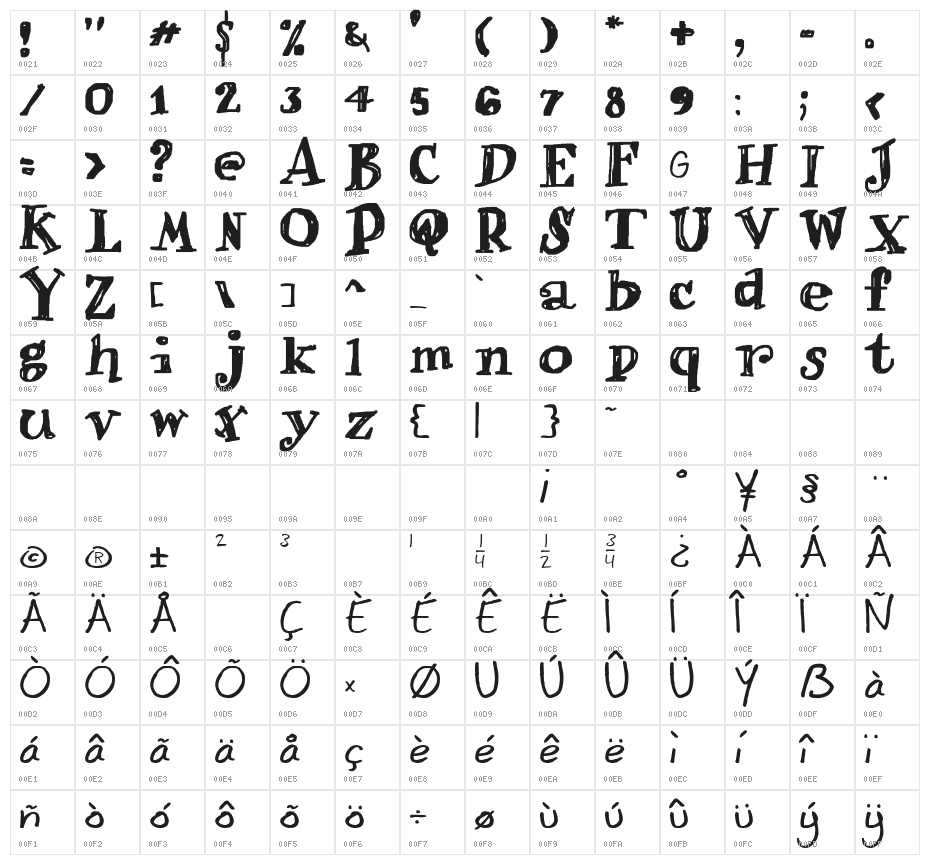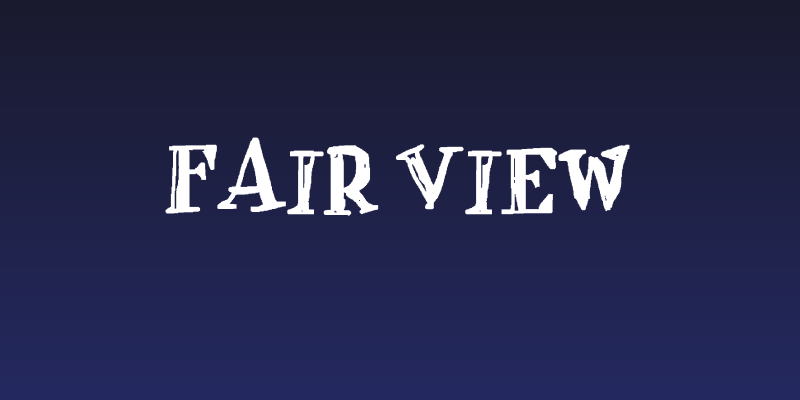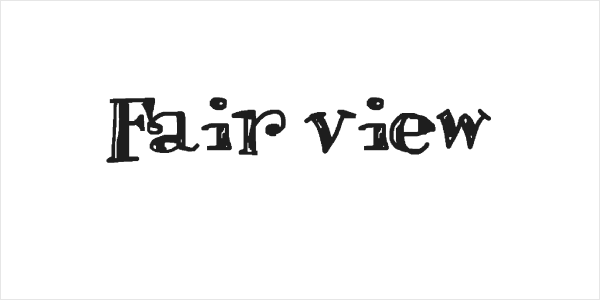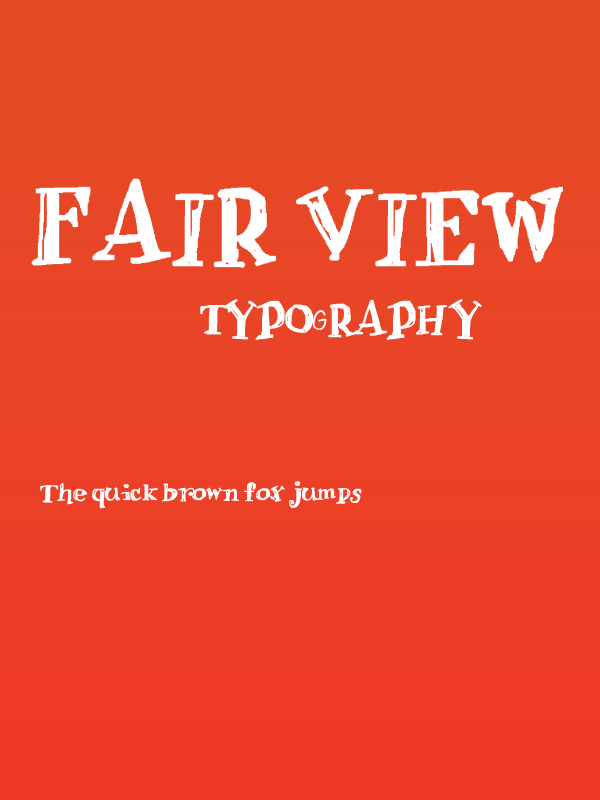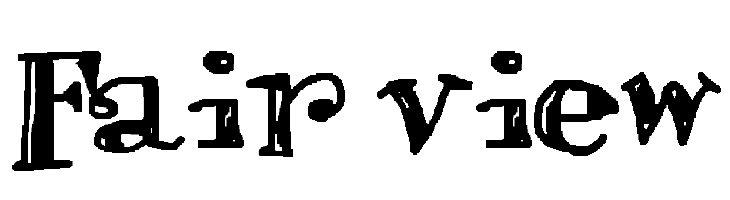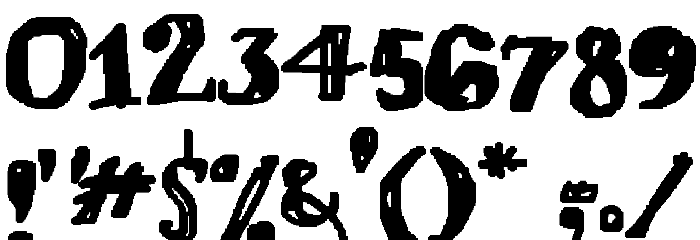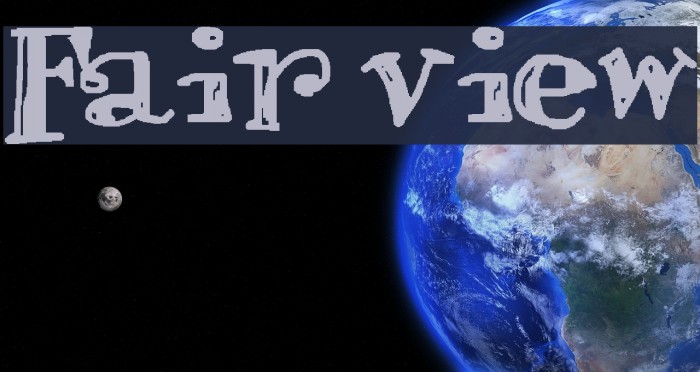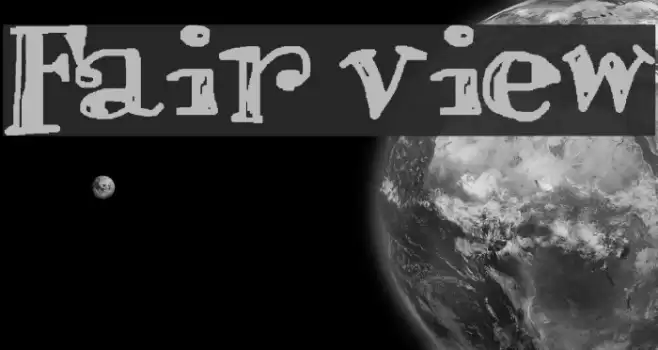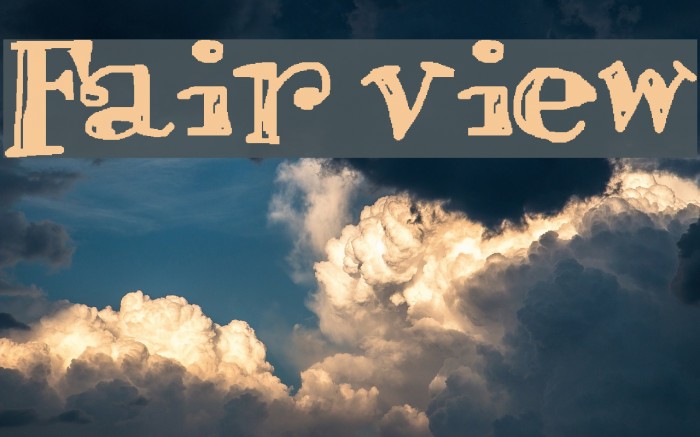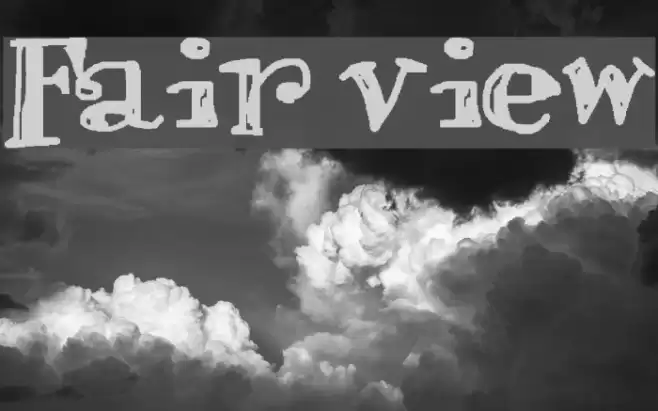
Fair view Font
Fair view Description
This font features a bold and playful style with a hand-drawn appearance. The characters exhibit irregular shapes and varying stroke thickness, giving it a whimsical and artistic feel. The uppercase letters are particularly distinctive, with exaggerated serifs and unique curves. The lowercase letters maintain a consistent style, complementing the uppercase with their quirky design. Numbers and special characters follow the same playful theme, ensuring a cohesive look across all elements. This font's distinctiveness makes it ideal for creative projects that require a touch of personality and flair.
| Proposed Projects | Ideal for children's books, creative posters, artistic branding, and playful invitations. |